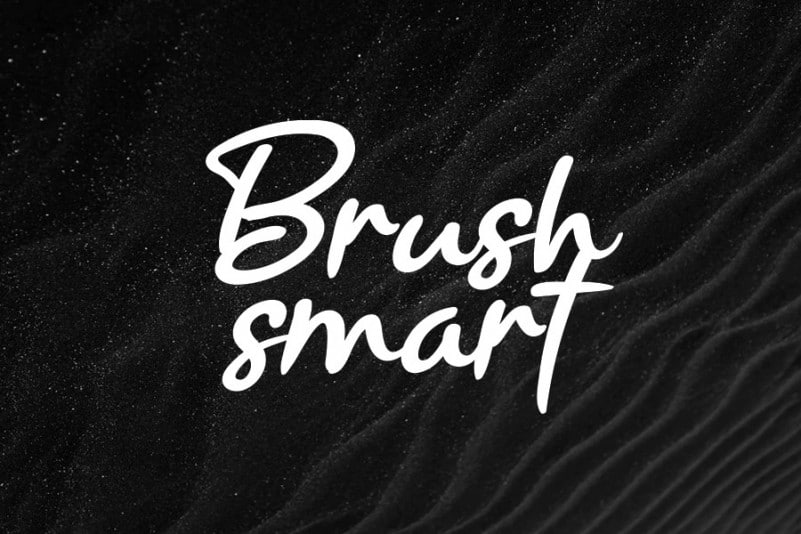
Ramyihu Handwritten Font
Ramyihu Handwritten Font is a gorgeous and unique handwritten font, designed to make your projects come alive. Fall in love with its incredibly versatile style and use it to create stunning wedding invitations, beautiful stationary art, eye-catching social media posts, and much more!
The latest style letters are perfect for wall displays, wedding invitations, social media post logos, advertisements, product packaging, product designs, labels, photography, watermarks, invitations, stationery, and any project that requires taste handwriting.